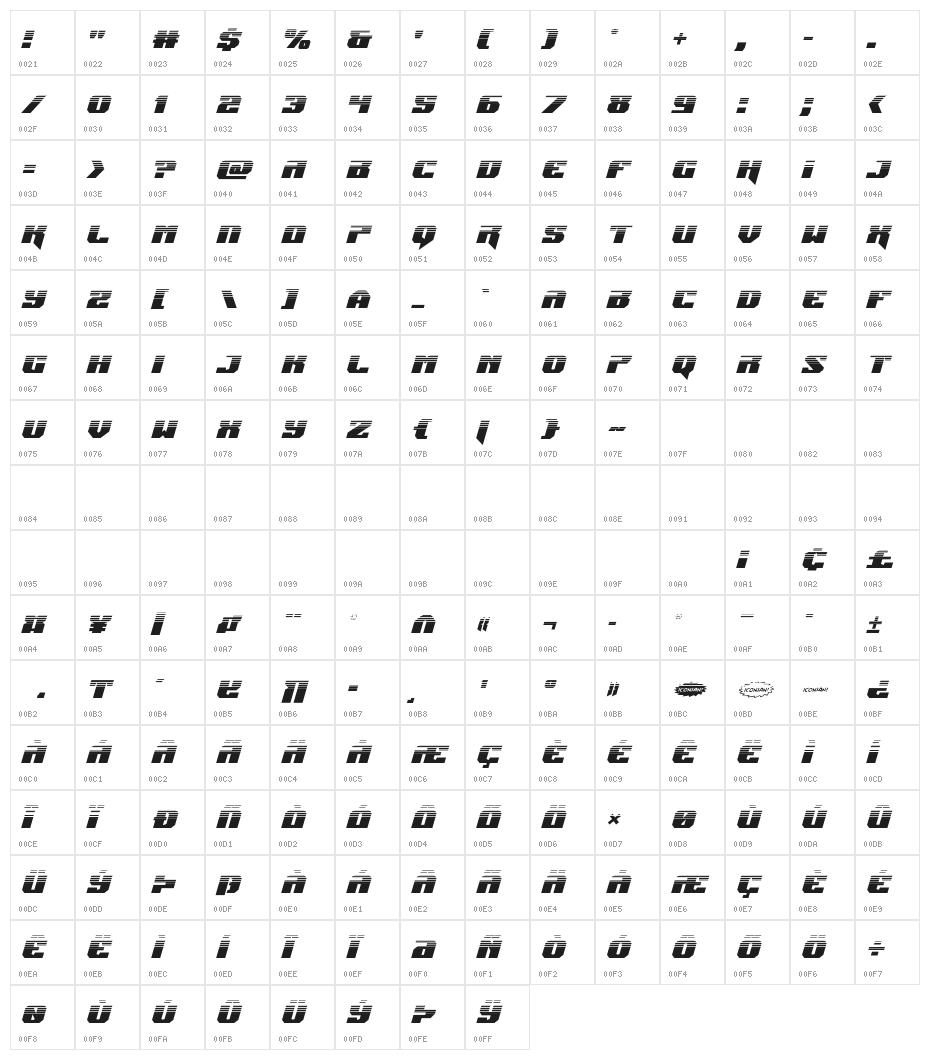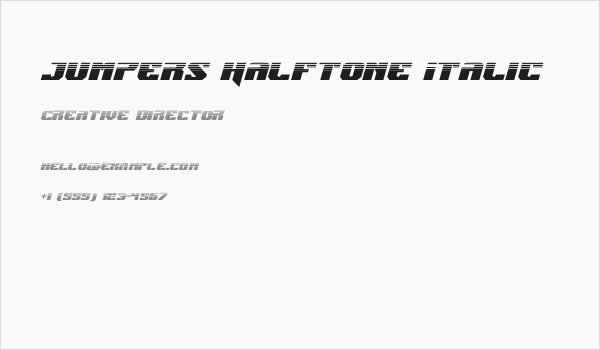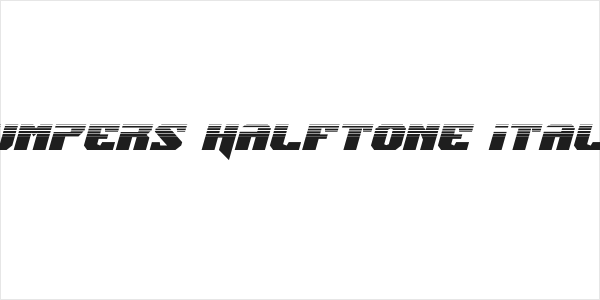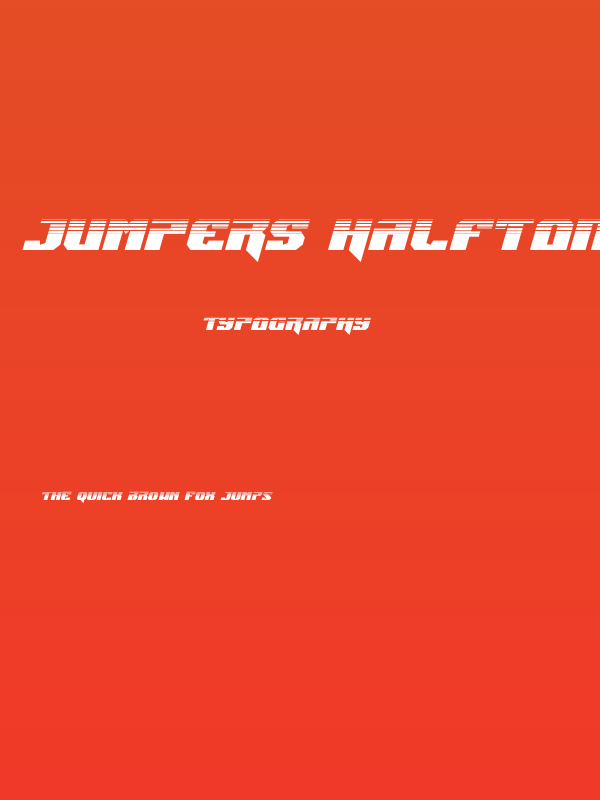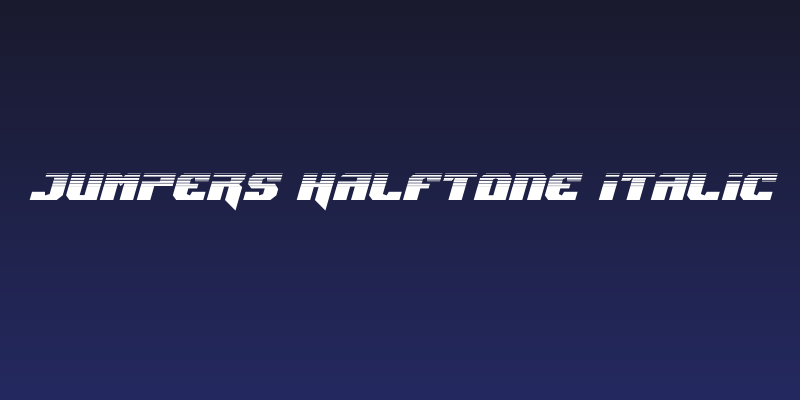
Jumpers Halftone Italic Font
Jumpers Halftone Italic Description
This font features a bold, dynamic style with a halftone effect that gives it a unique, futuristic appearance. The characters are italicized, adding a sense of motion and energy. The uppercase and lowercase letters maintain a consistent design, with sharp angles and a blocky structure. The numbers and special characters follow the same aesthetic, ensuring uniformity across all glyphs. The halftone lines create a sense of depth and texture, making it ideal for eye-catching designs.
| Overall Style | Futuristic, Dynamic |
| Proposed Projects | Ideal for sci-fi themed posters, video game titles, modern branding, and dynamic logo designs. |